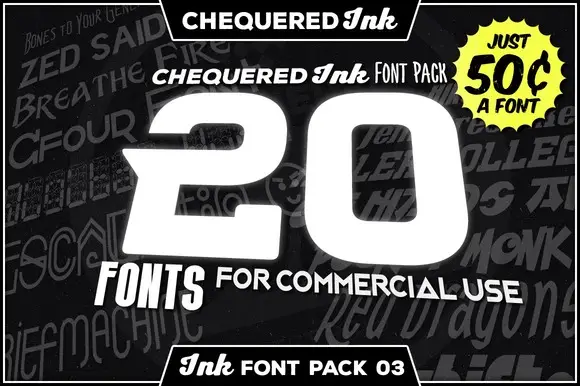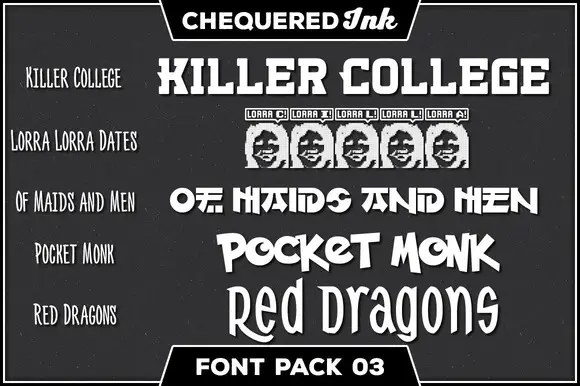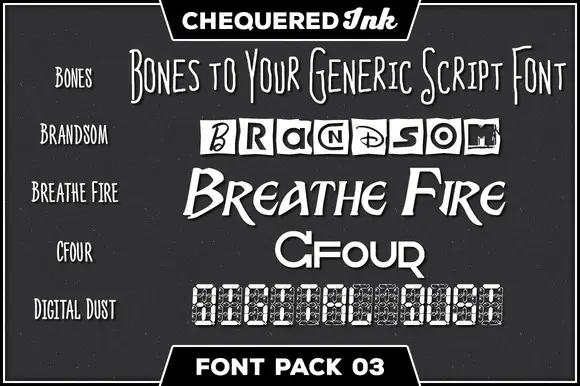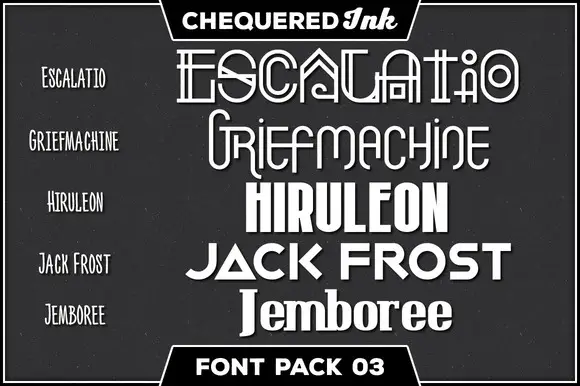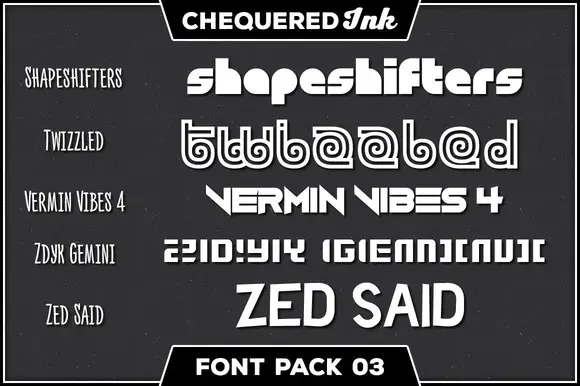
Ink Font Pack 3 20 Fonts
Introducing the Ink Font Pack 3, a carefully curated collection of 20 unique fonts that bring a touch of personality to your design projects. This versatile pack includes a variety of styles, from elegant scripts to bold display fonts, suitable for any creative endeavor.
• 20 distinct font styles
• Includes both serif and sans-serif options
• Perfect for branding, logos, and promotional materials
• High-quality typography for print and digital use
• Weights: Regular, Bold, Italic variations available
• Ideal for creating eye-catching logos and branding materials
• Use in web design for a unique typographic flair
• Perfect for print projects such as invitations and flyers